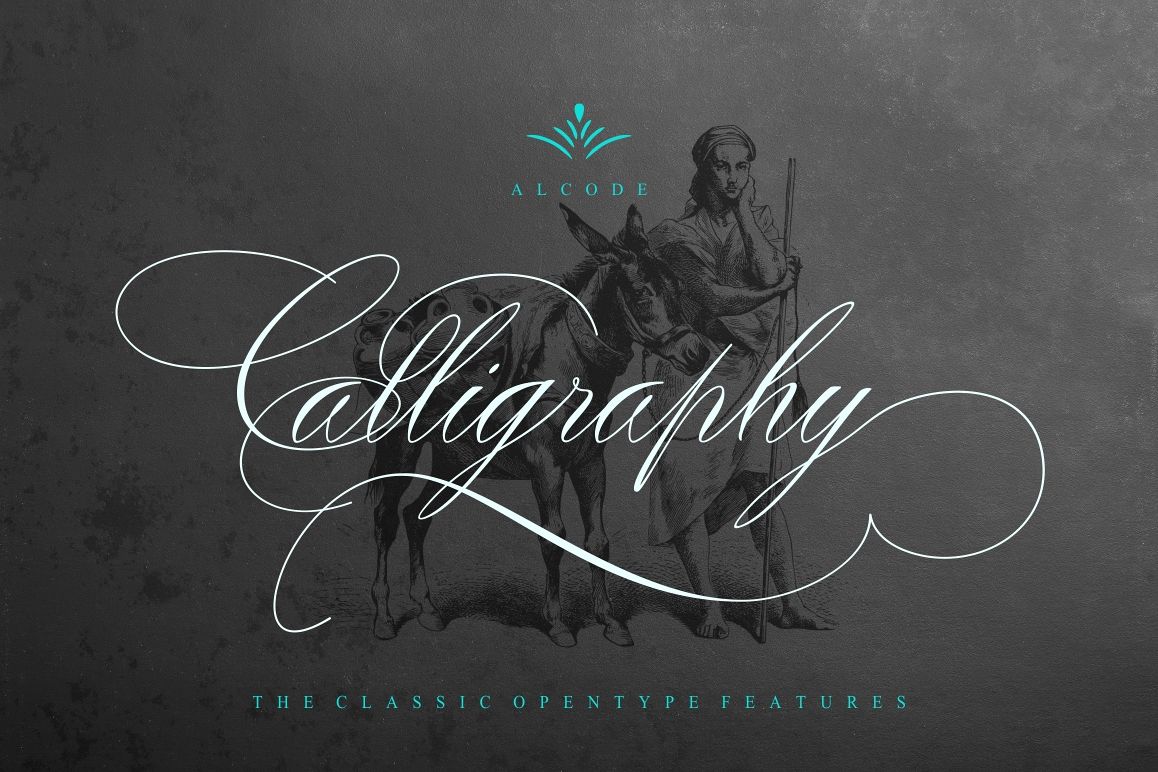
Peaches
Introducing Peaches
Peaches is a classic calligraphic font. This is a classic thin font with an oblique style. Here you will get a beautiful classic font. I'm sure, this font will make your rich look elegant, sweet and perfect.
With this style, this font will be appropriate for logo project, wedding invitation card, branding, home design, product packaging, quotation, logo, shirt, book cover, business card, greeting card and all other beautiful projects.
You can use this font for your work very easily. Because there are many features in it. Contains the full set of uppercase and lowercase letters, punctuation, numbers, web fonts, and multilingual support. This font also includes some ligatures and alternative styles Stylistic Set For those of you who have software that is able to work OpenType (Corel Draw / Photoshop / Illustrator / InDesign).